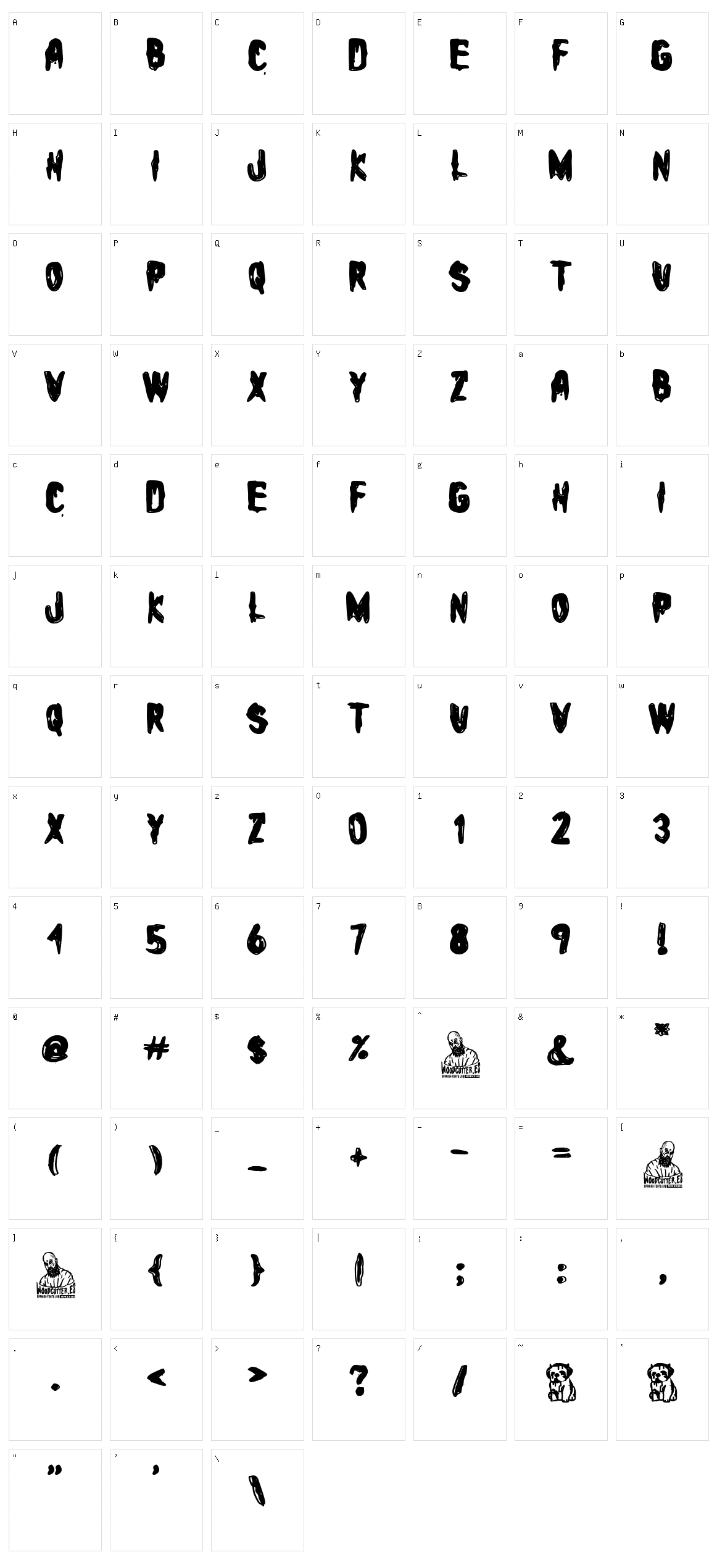
The free font Little Dog of Hell is carefully designed by Woodcutter, showcasing a thoughtful balance of creativity and usability and falls under the Horror font style. When you download the ZIP file, it contains only 97.69 KB of font files, making it lightweight and quick to download. Please review the license details below to understand permitted usage and distribution rights. If license information is not available, we recommend using this font for personal projects only or contacting the author directly for commercial usage permissions.